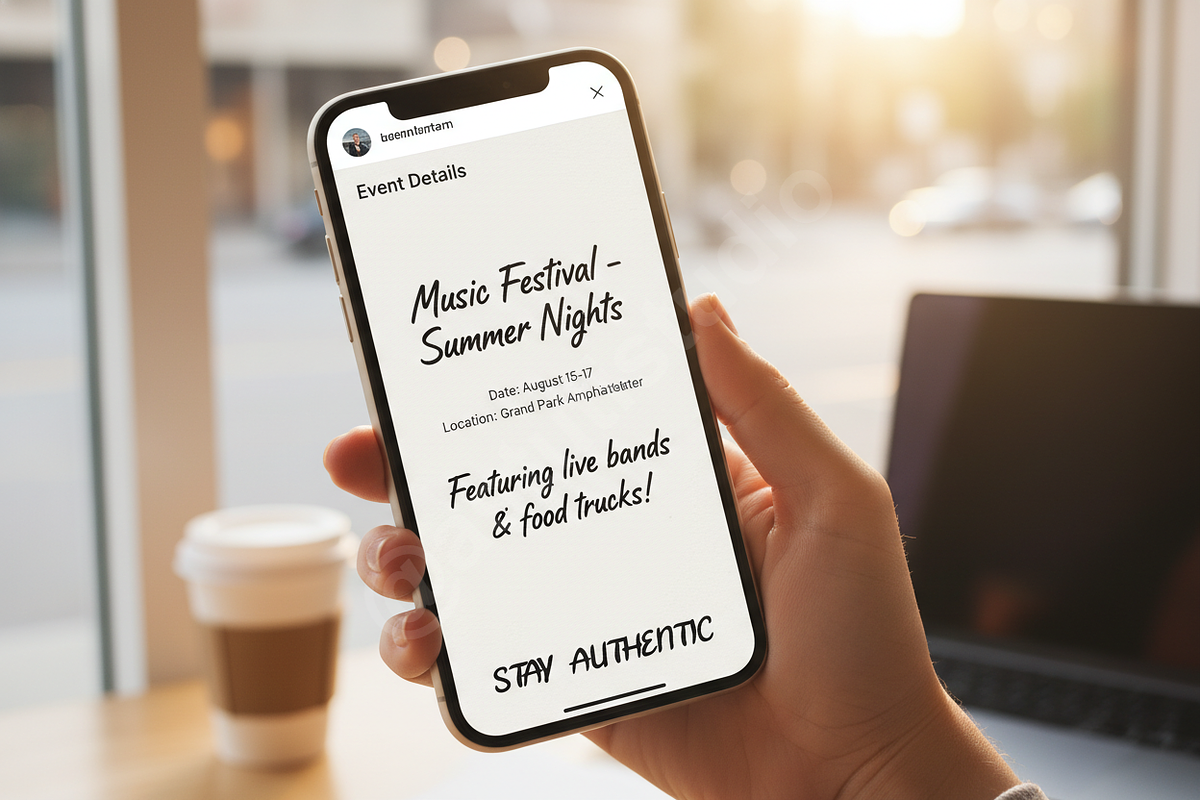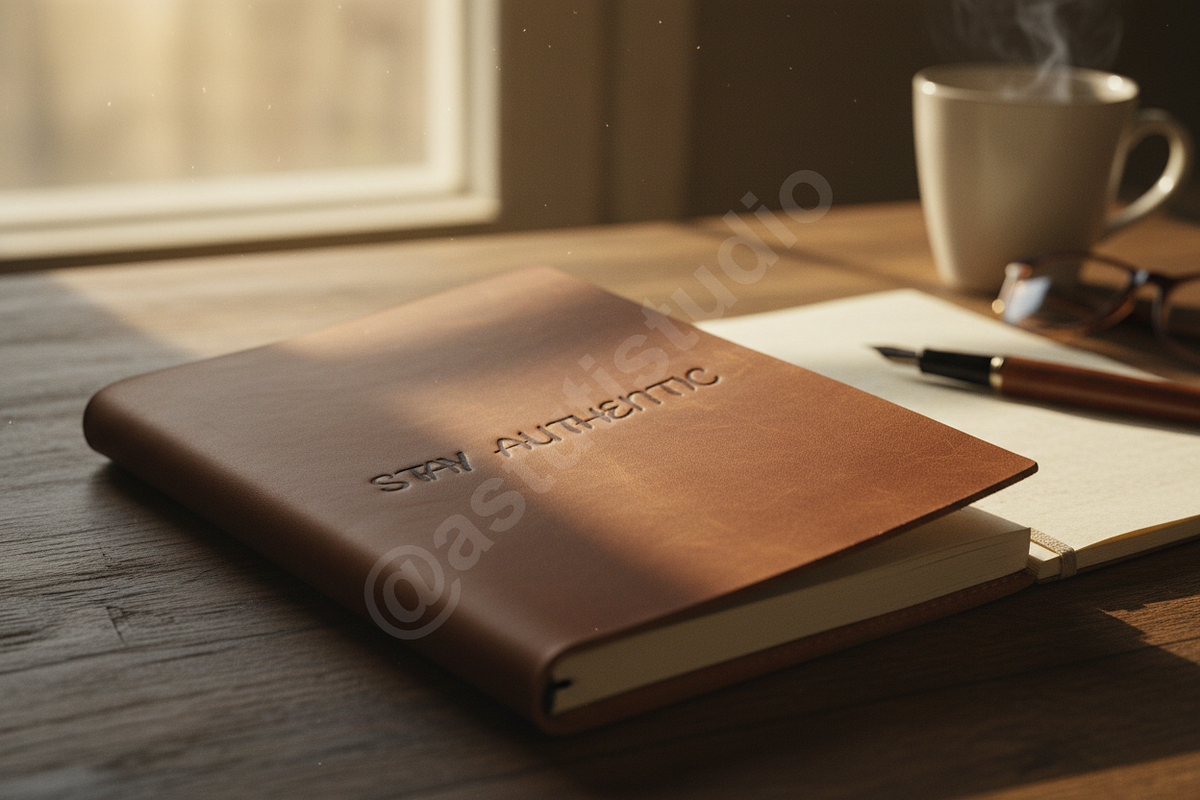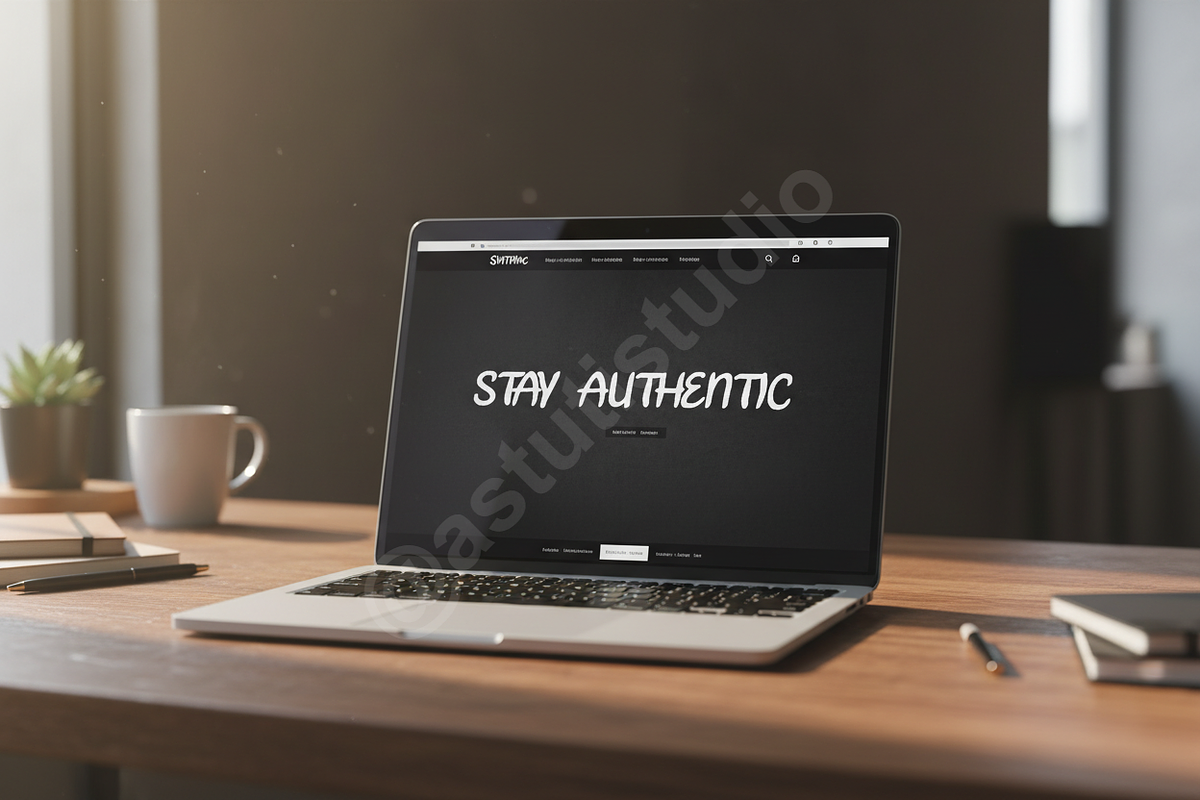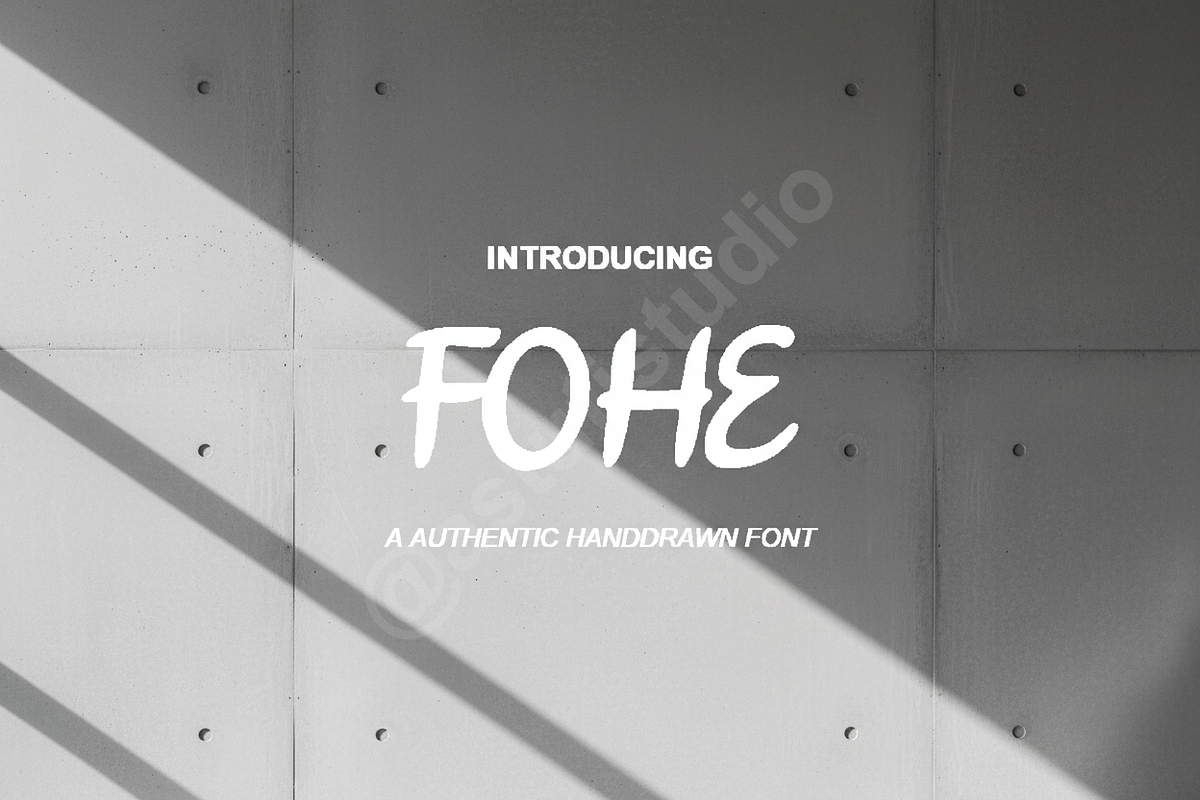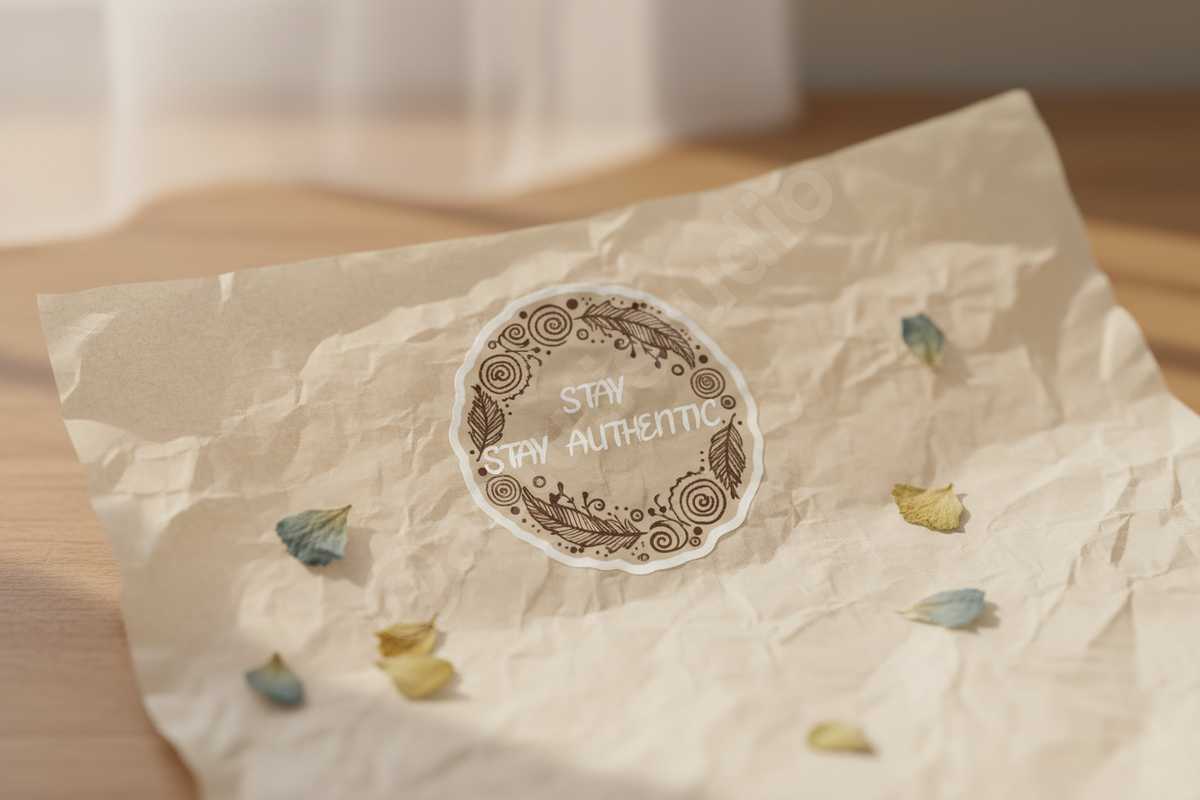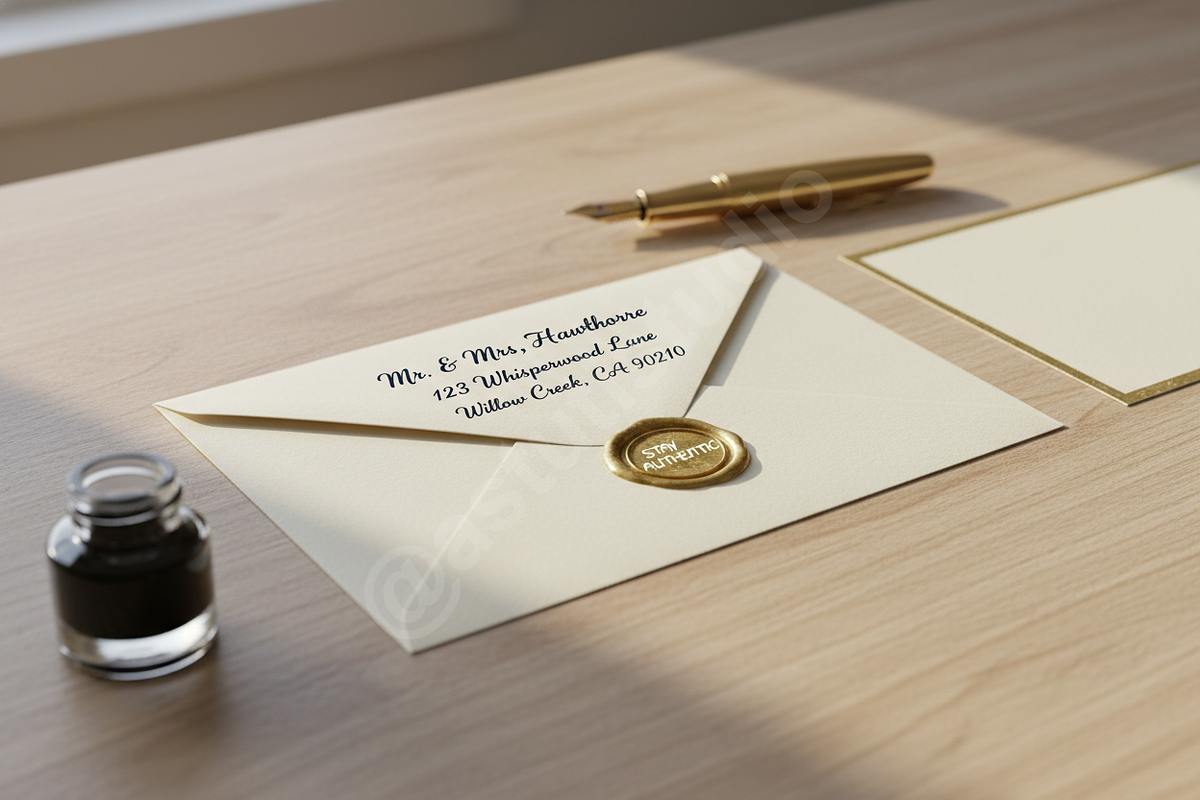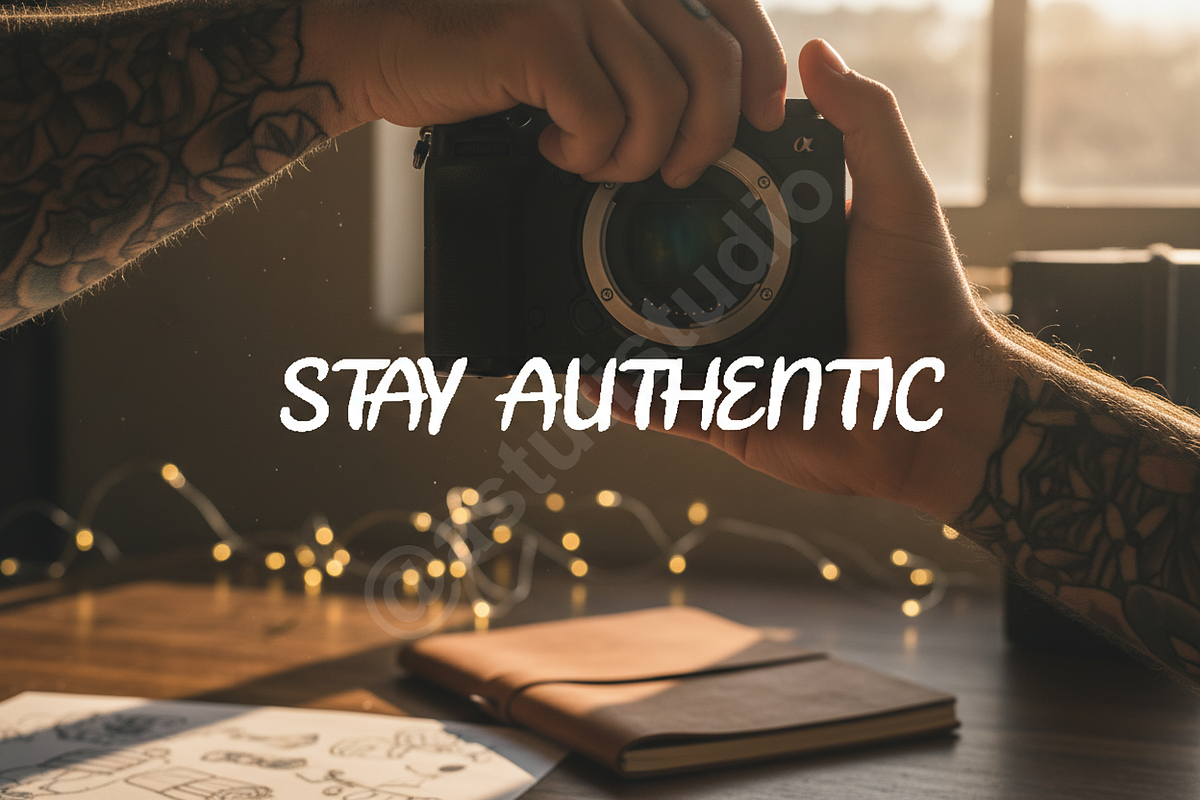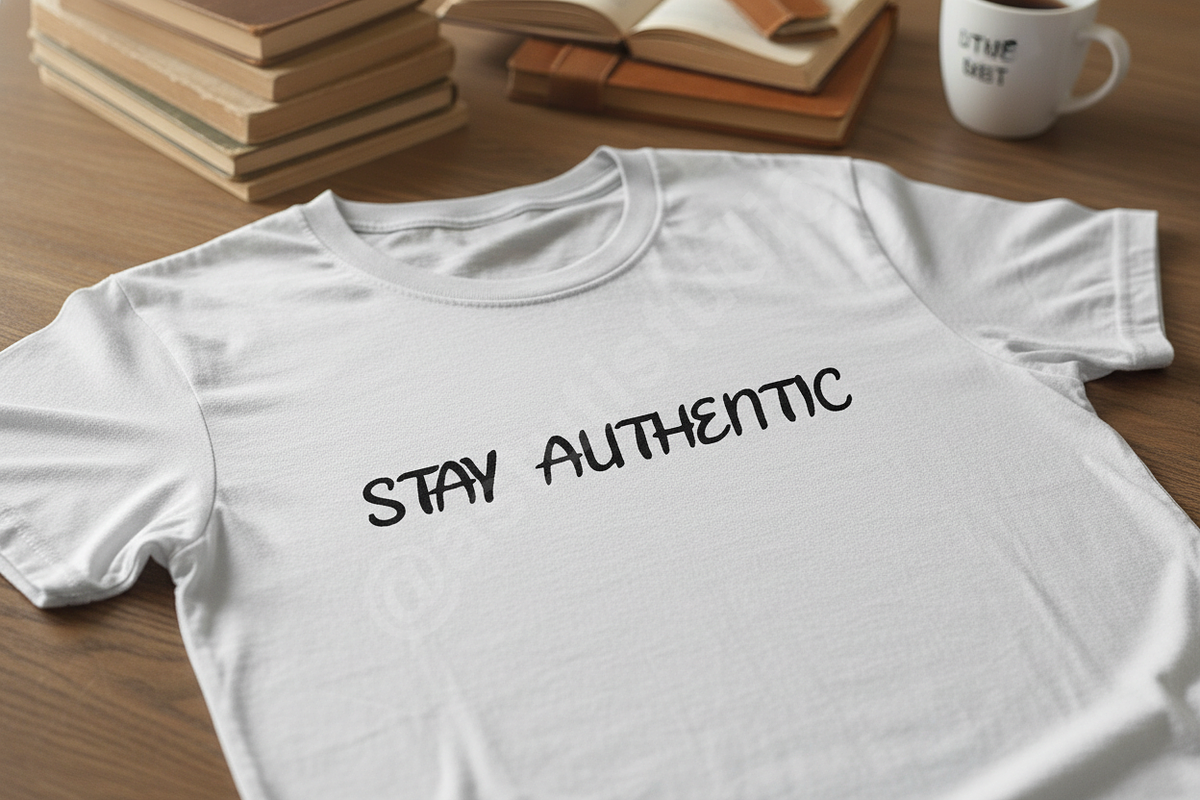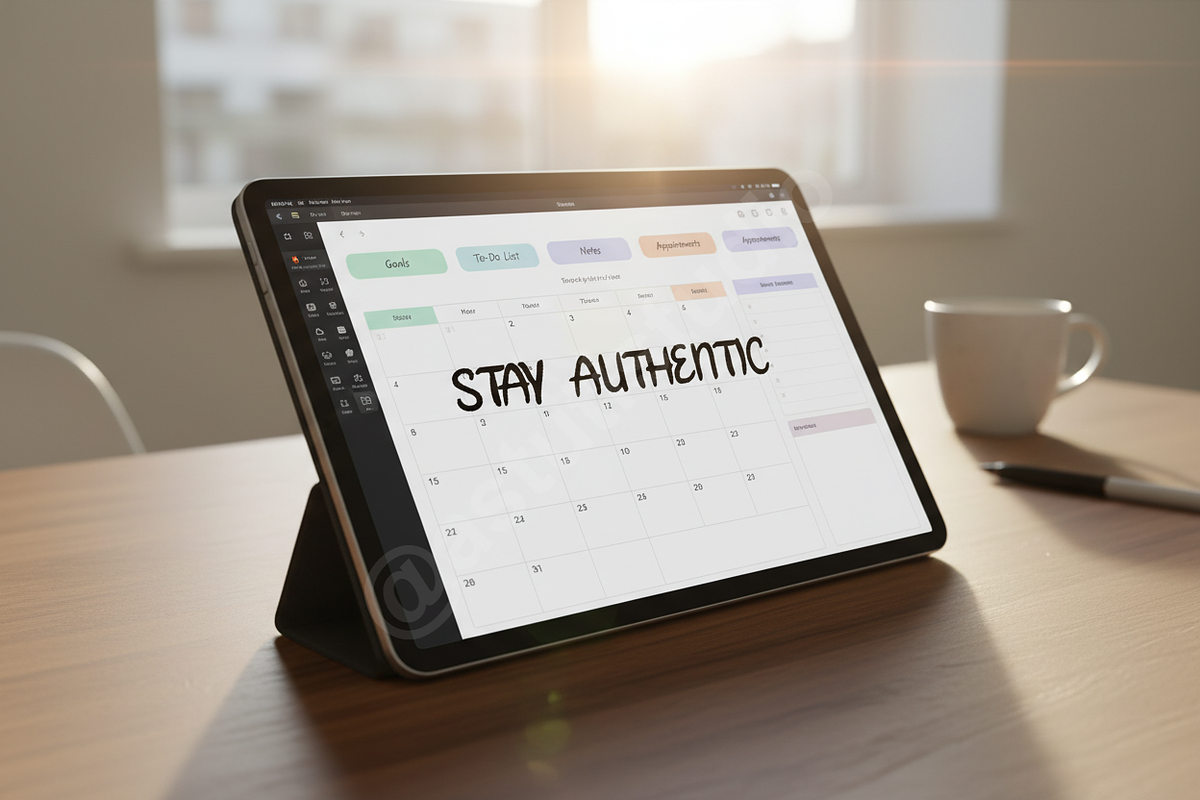
Fohe | Modern Elegance Display Typef
Introducing Fohe, a meticulously crafted display typeface designed for the discerning creative. Fohe embodies refined luxury and contemporary elegance, making it the perfect choice for projects demanding sophistication. Inspired by classic high-fashion editorial layouts and modern architectural lines, Fohe offers a compelling blend of tradition and forward-thinking design.
- Luxury Branding: Ideal for high-end packaging, logo design, and corporate identity where prestige is paramount.
- Editorial Design: Excellent readability and distinctive character for magazines, sophisticated reports, and book covers.
- Social Media: Optimized for strong visual impact in story templates, advertisements, and highly stylized headers.
- Extensive Multilingual Support: Covers Western, Central, and South Eastern European languages.
- Unique Character Set: Includes carefully balanced alternative glyphs and ligatures to enhance design flexibility and give your work a bespoke feel.
- Full set of Uppercase and Lowercase letters
- Extensive Ligatures and Alternates (Accessible via standard OpenType features)